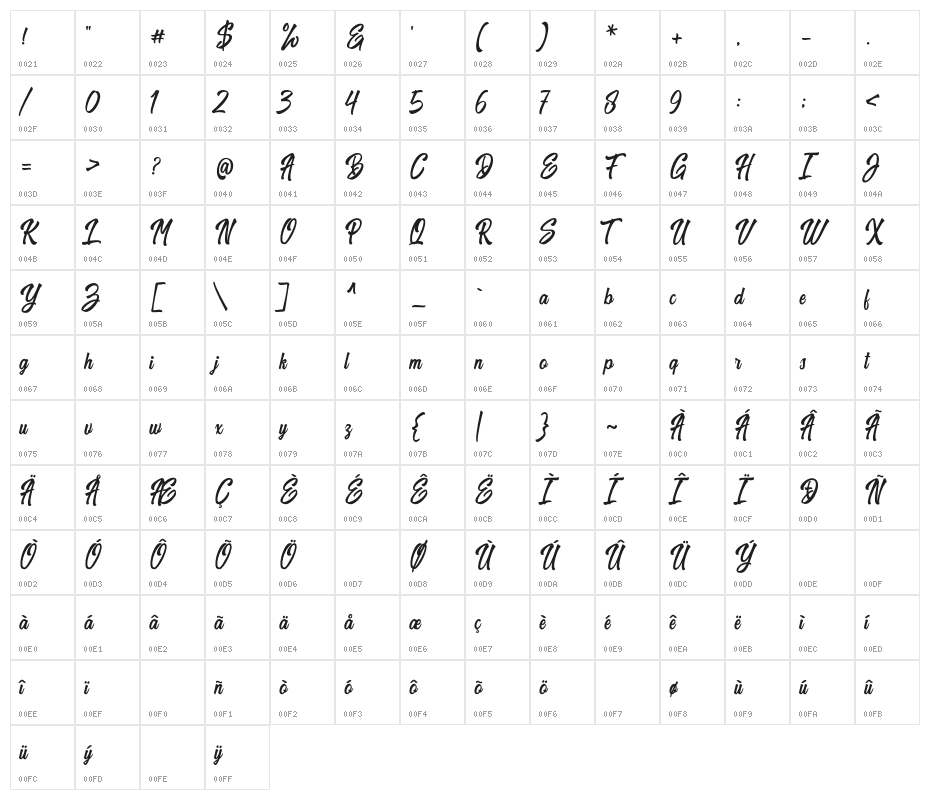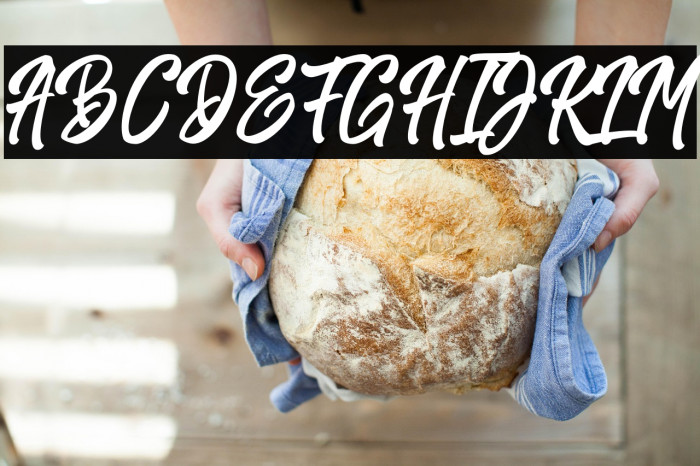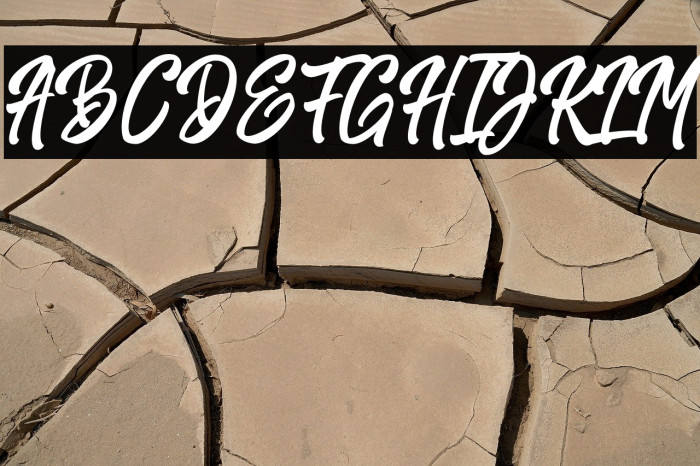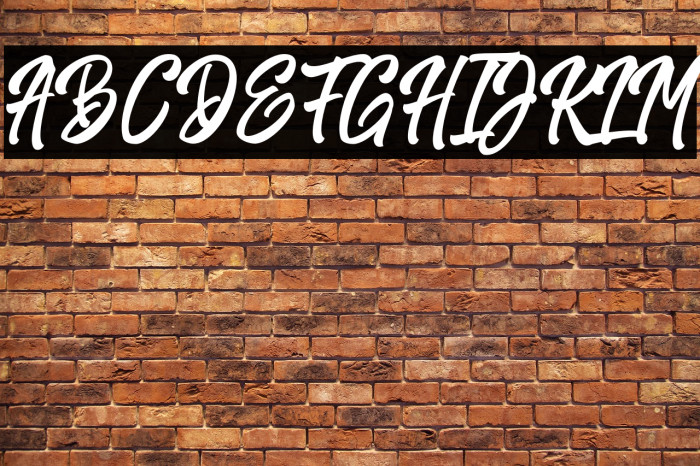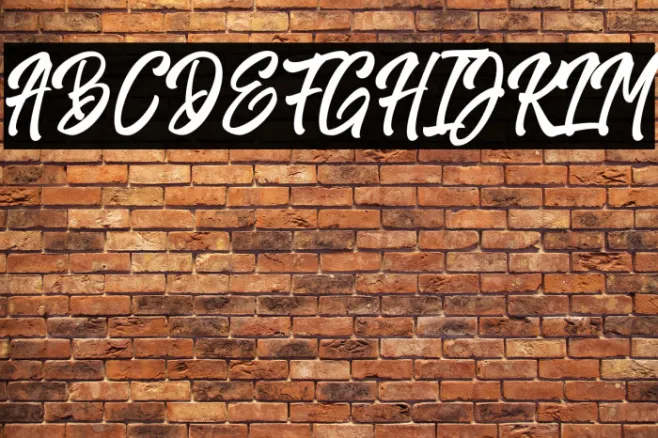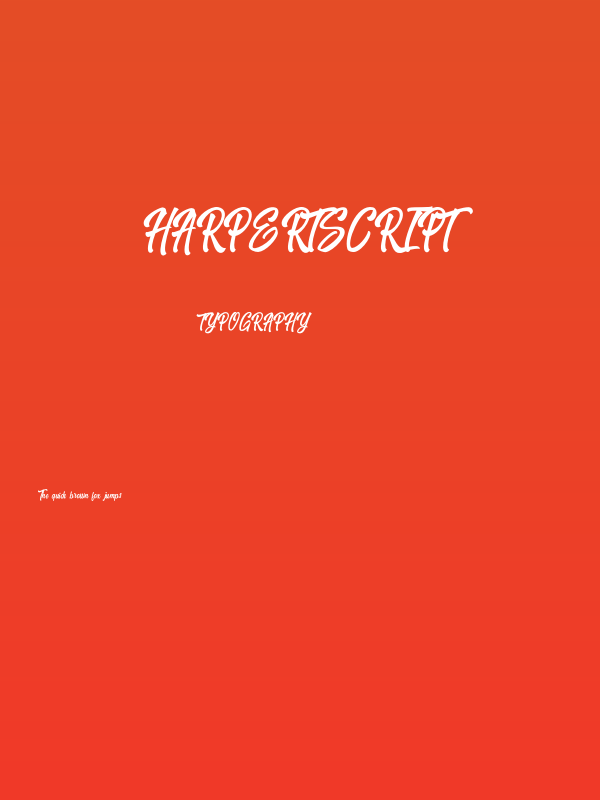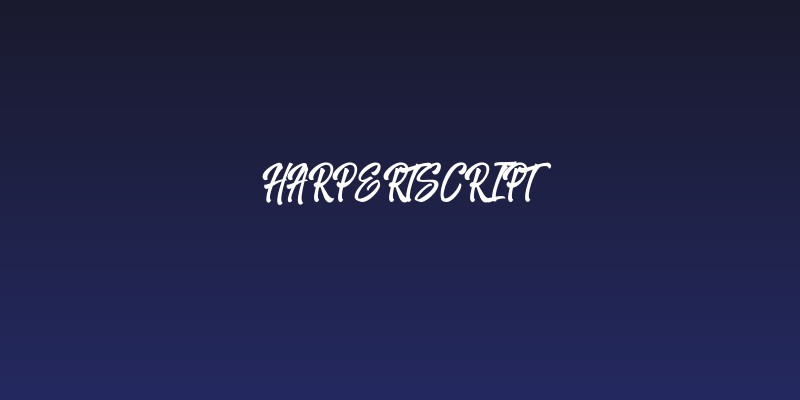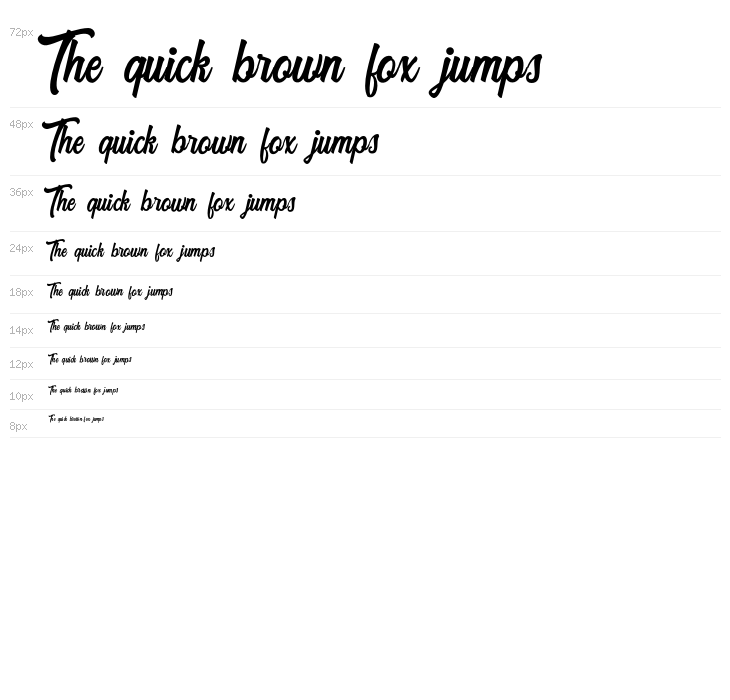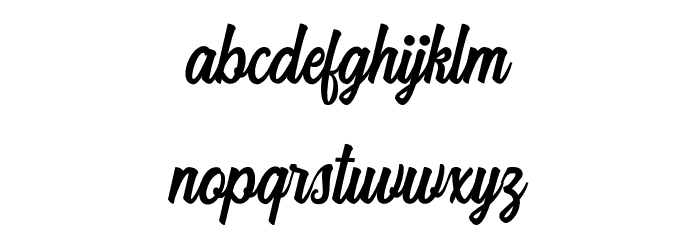
HarpertScript Font
HarpertScript Description
This font features a dynamic and flowing script style, characterized by its elegant and cursive letterforms. The uppercase letters are bold and sweeping, with a sense of movement that adds a touch of sophistication. The lowercase letters maintain a consistent flow, enhancing readability while retaining a stylish flair. Numbers and special characters are designed to match the overall aesthetic, ensuring a cohesive look across all text. The font's design is reminiscent of handwritten calligraphy, making it suitable for projects that require a personal and artistic touch.